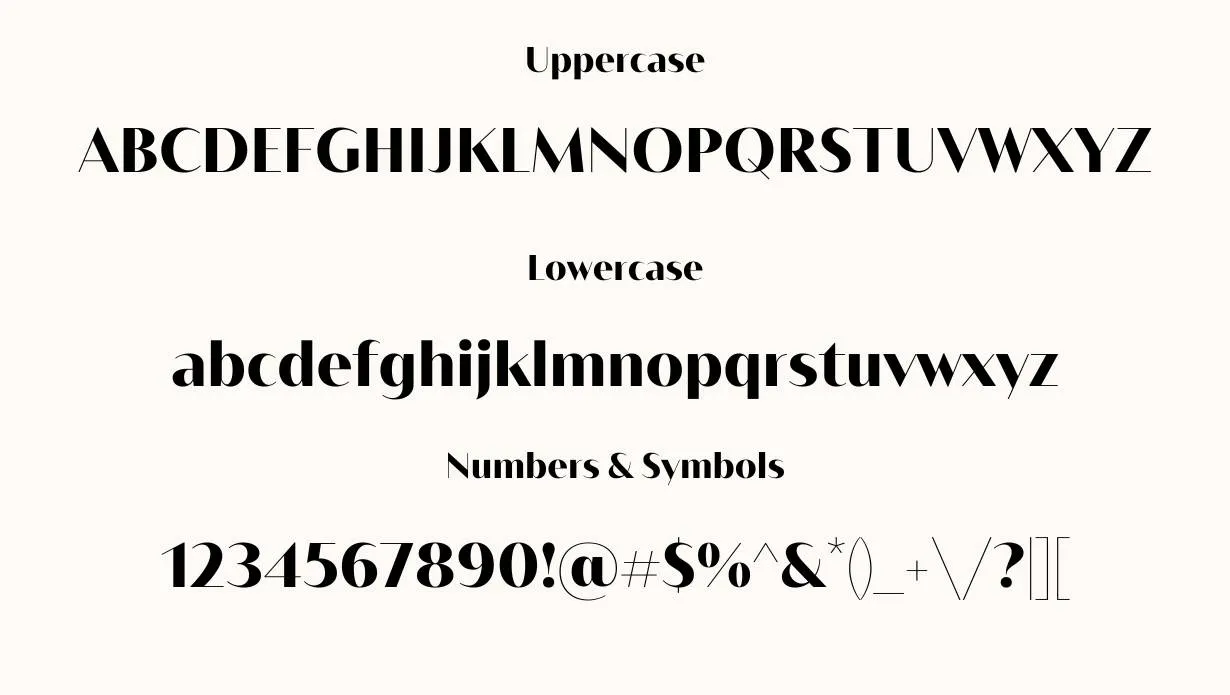
BW Vivant Font is a modern and versatile typeface known for its clean and contemporary design. Its readability and polished appearance make it suitable for website content, business materials, and educational resources.
| Name | BW Vivant Font |
| Designer | Moritz Kleinsorge |